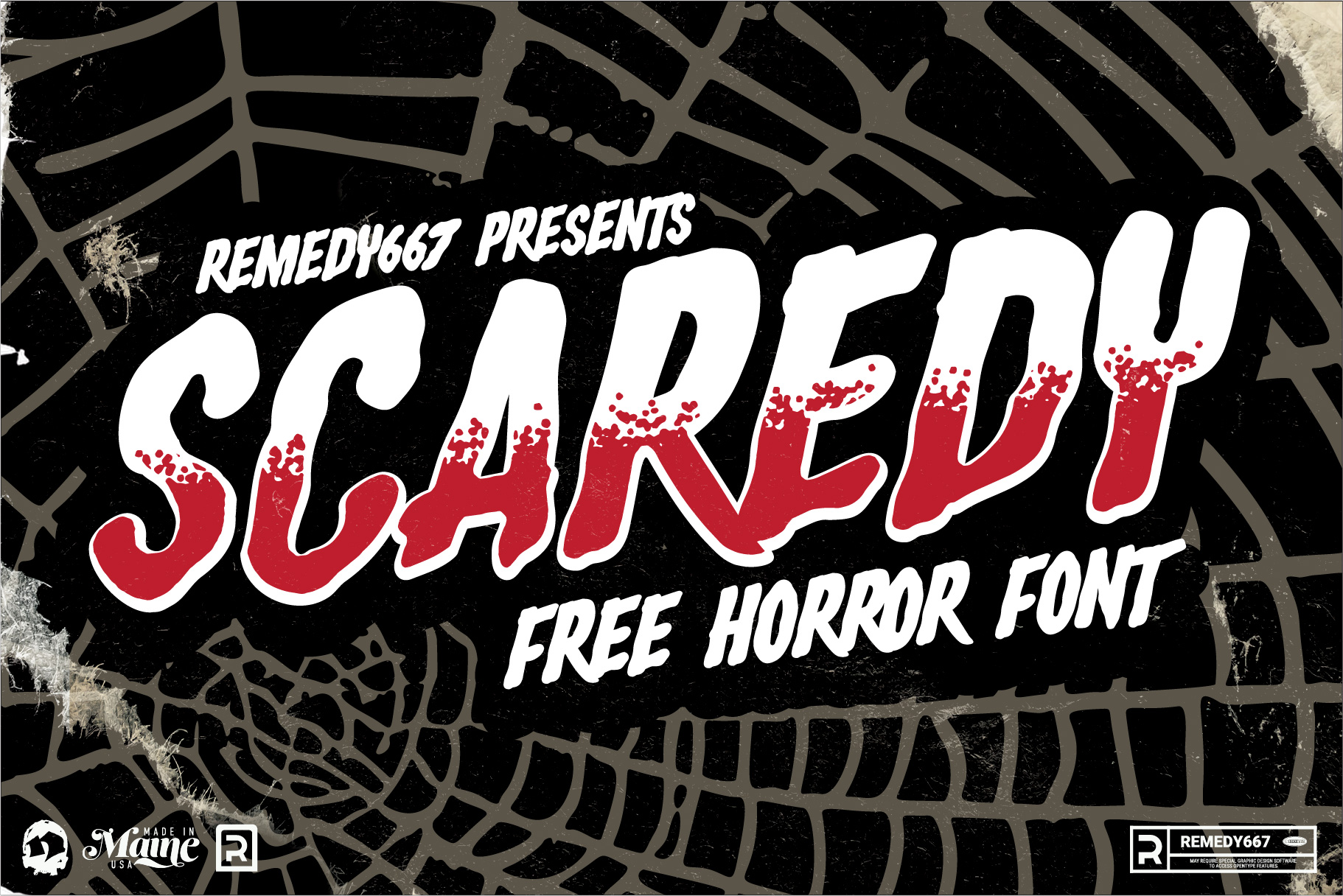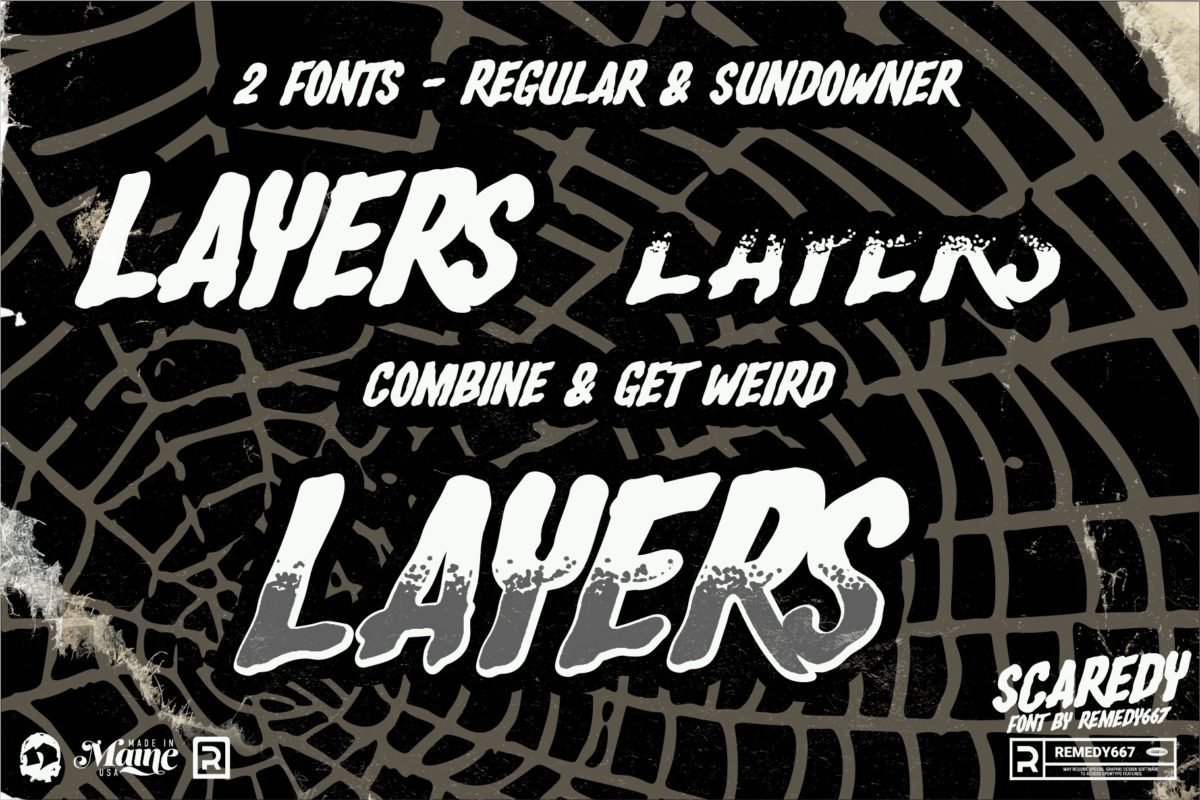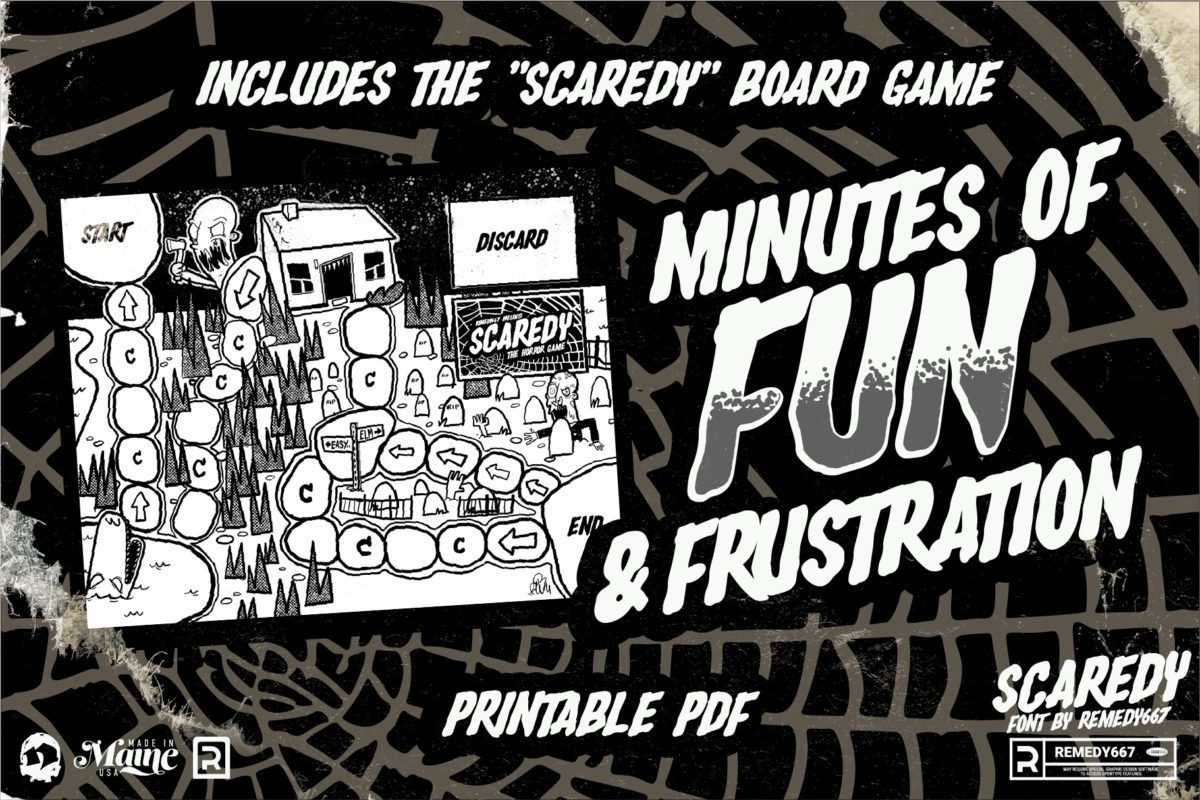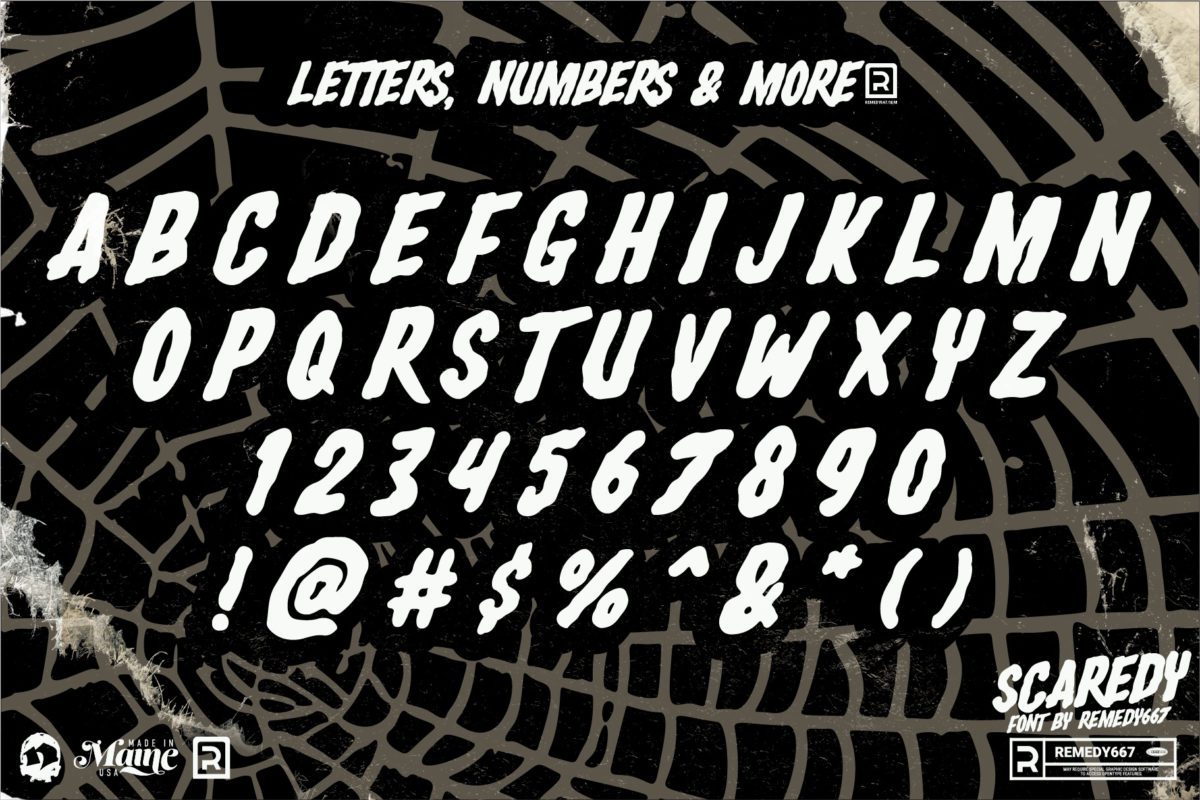
Scaredy
Introducing Scaredy, the latest spine-chilling Horror Font from Remedy667. Whether you’re working on a haunted house invitation or a spooky poster, Scaredy is the perfect companion to bring your nightmares to life.
- Doubles Elimination for letters and numbers for more natural looking text